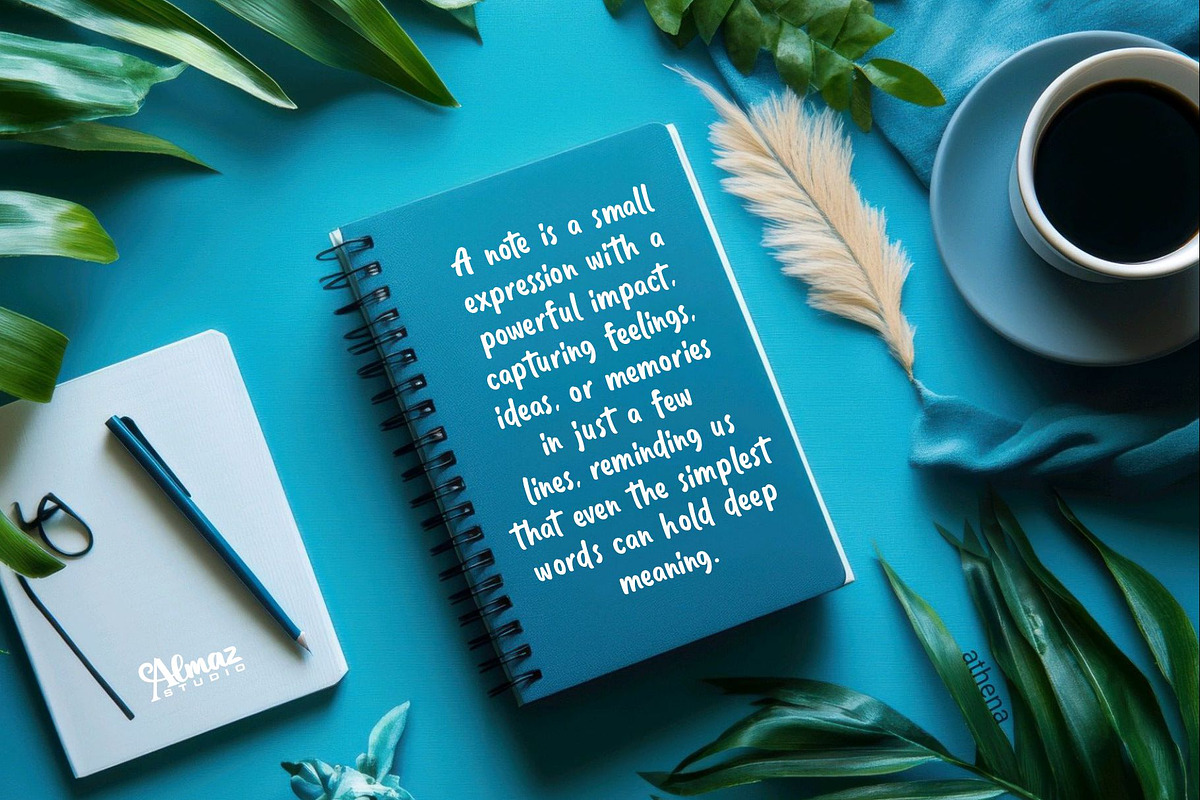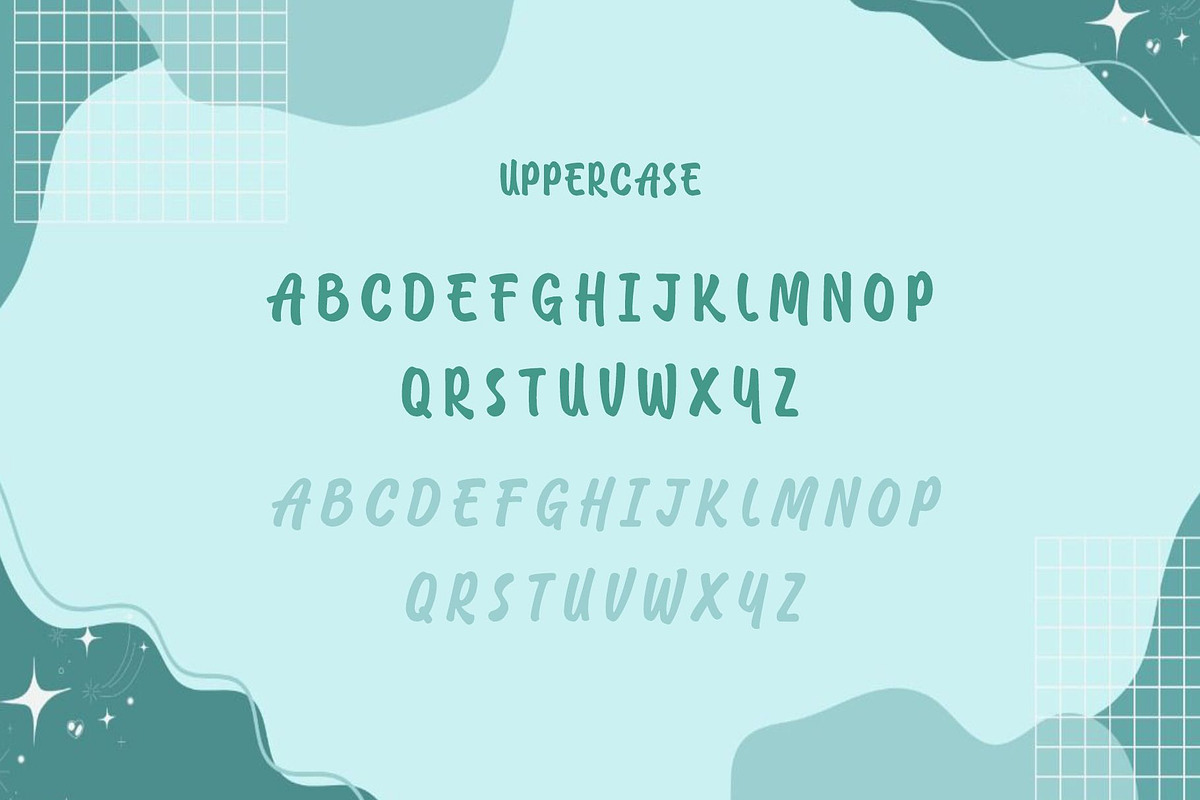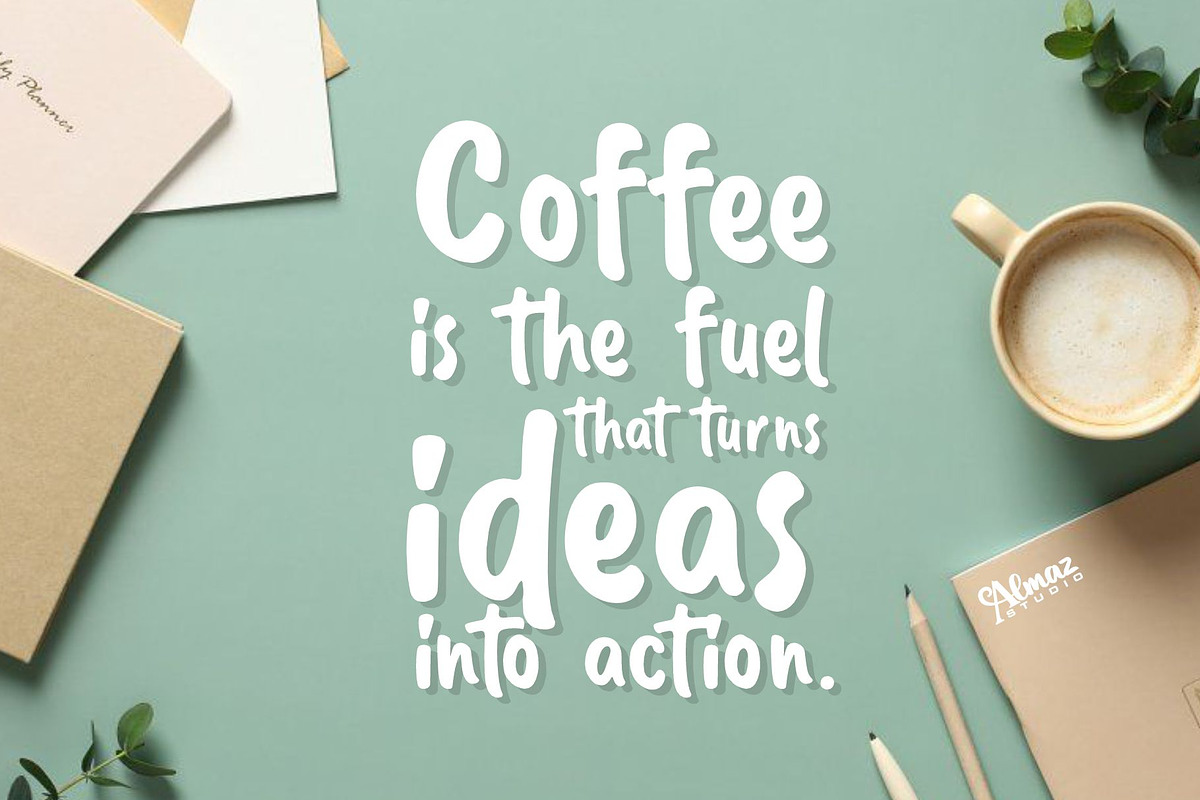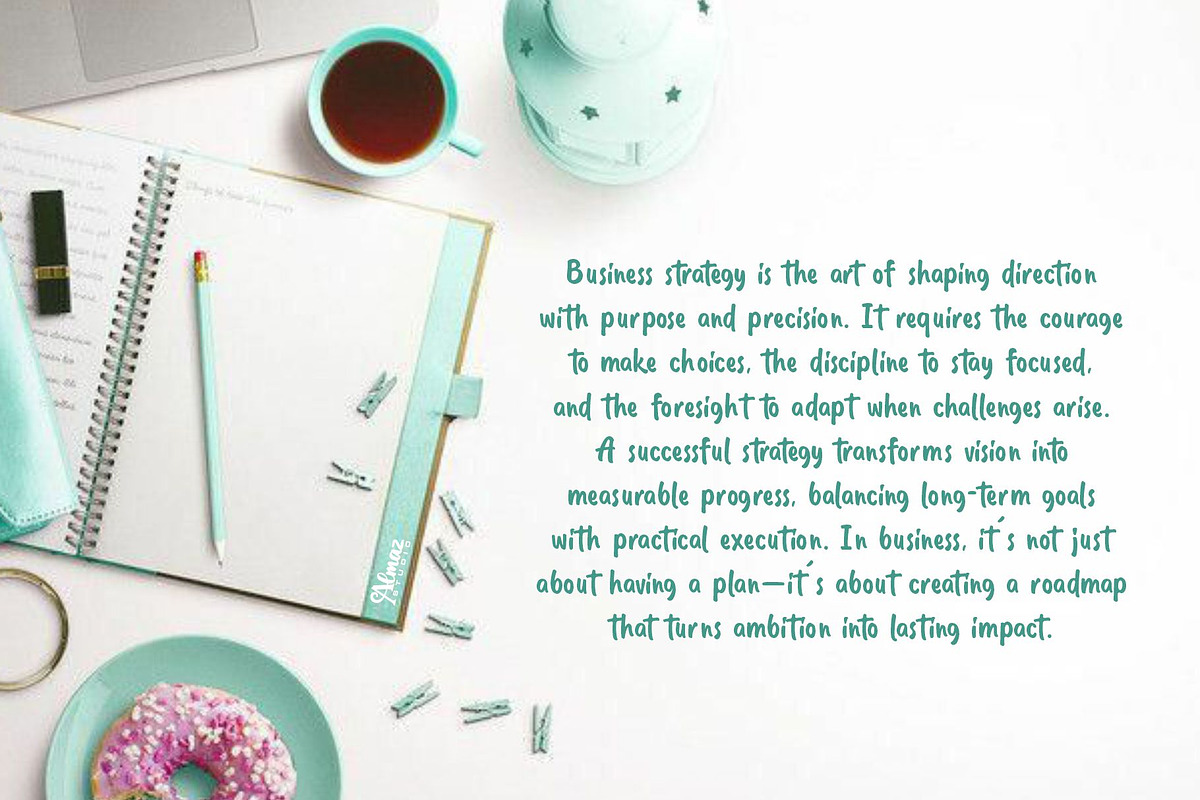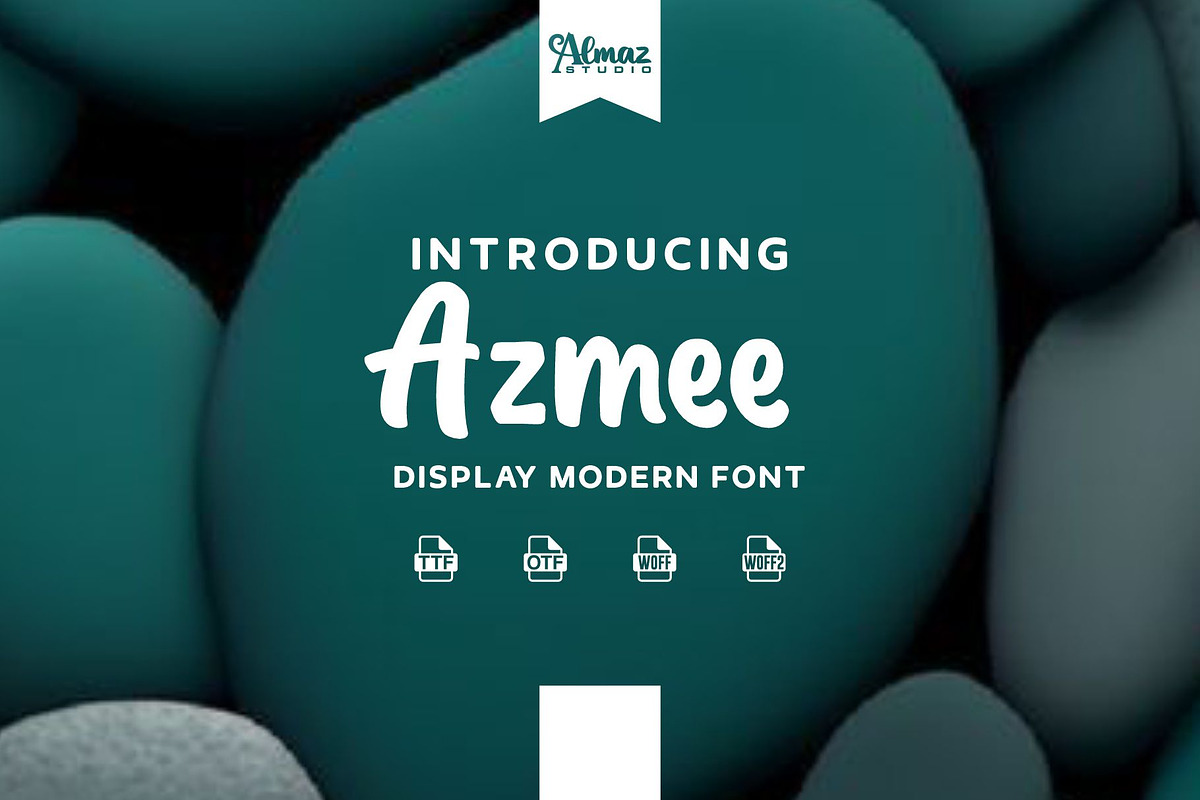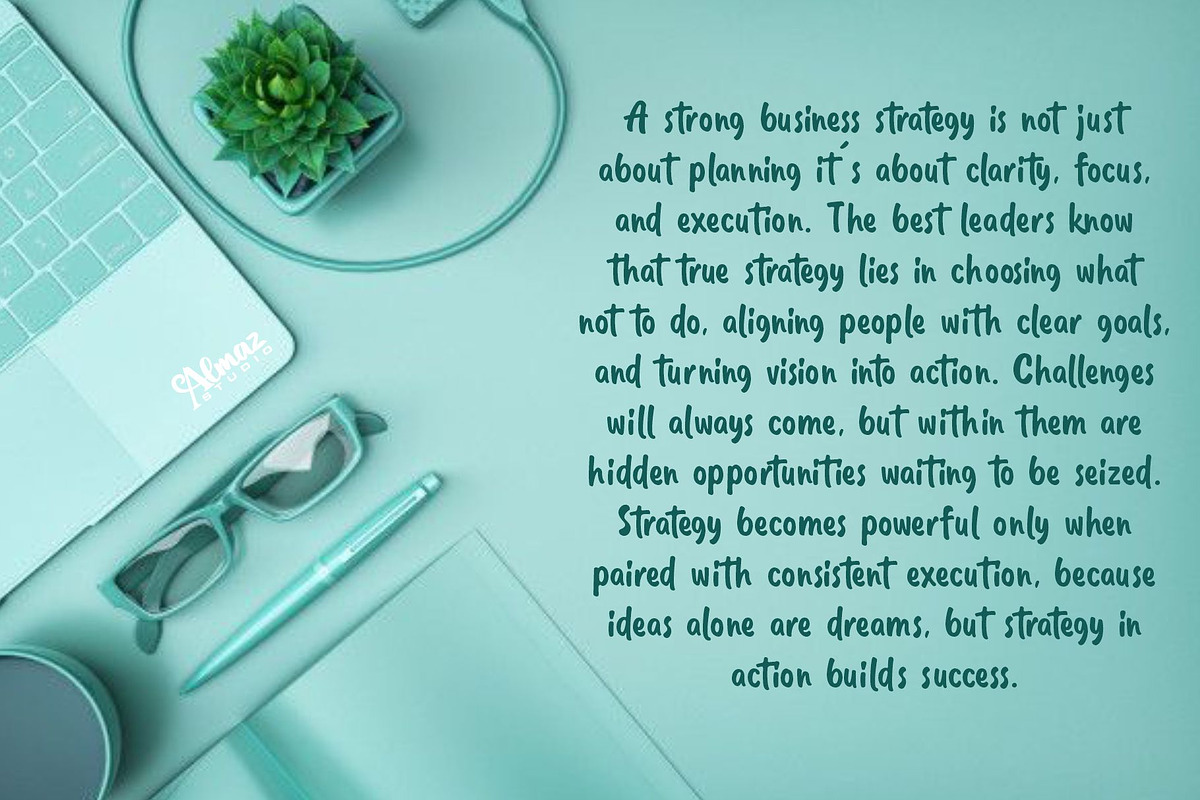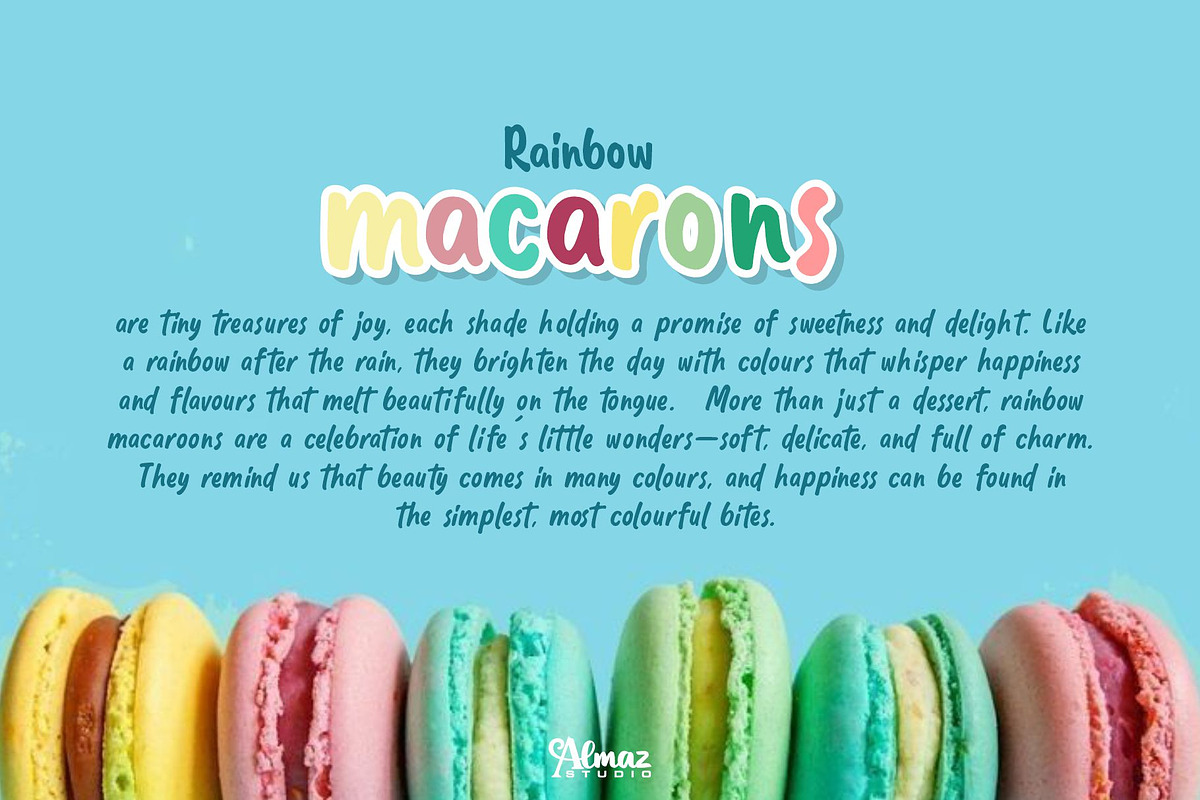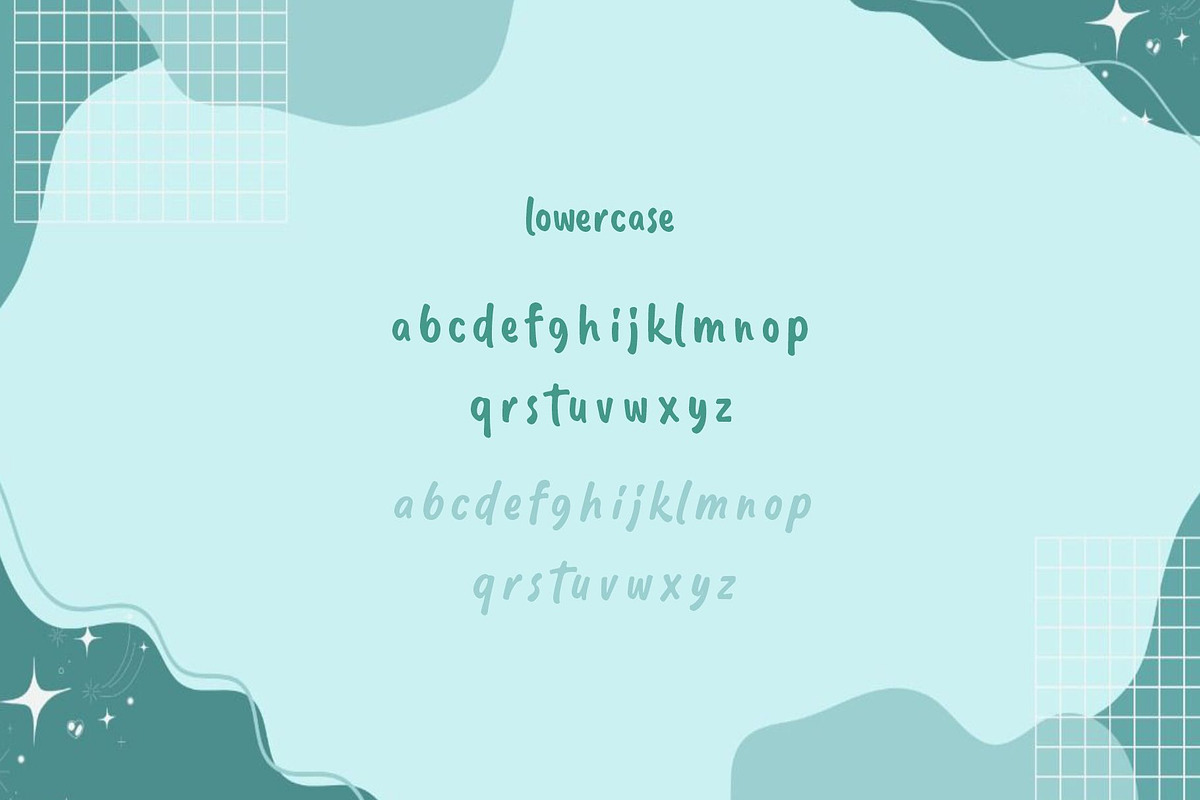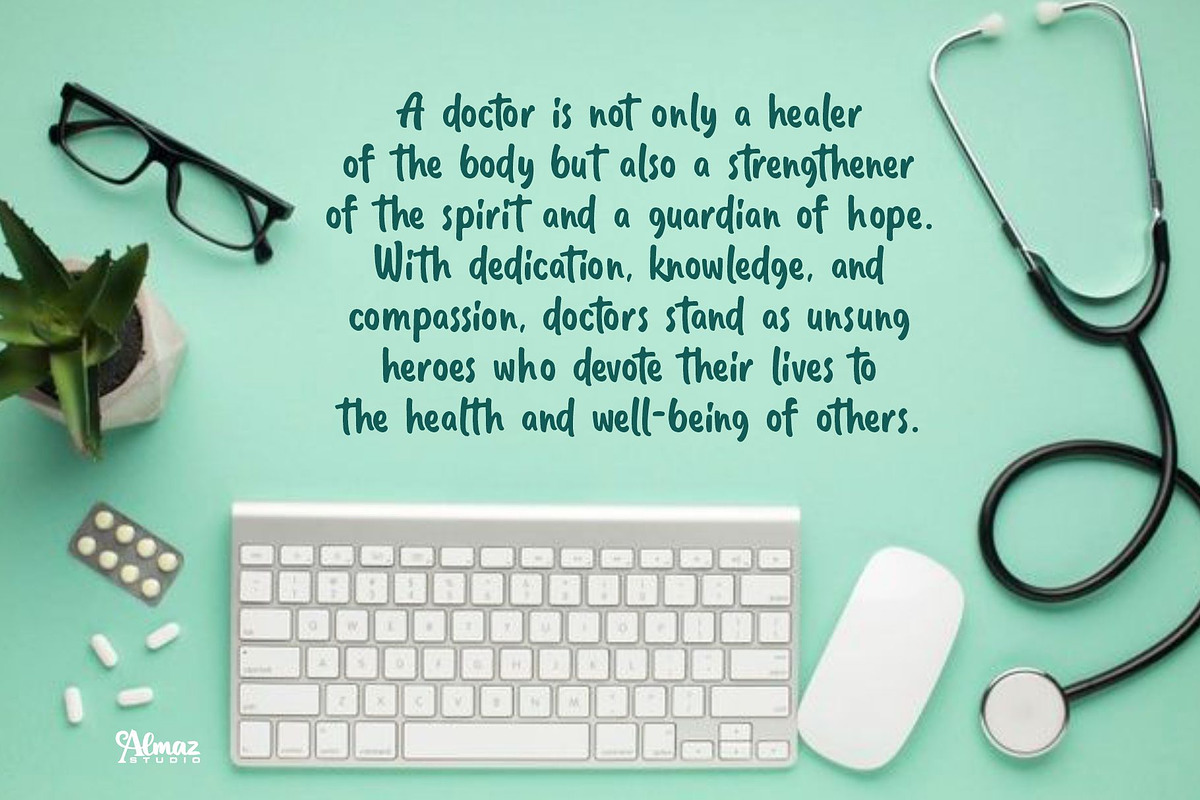
Azmee
Azmee is a modern display font with a playful, friendly, and bold personality. It features soft rounded strokes, smooth curves, and a casual handwritten feel that gives the font a warm and approachable character. The design is expressive yet clean, making it easy to read while still visually engaging.
Azmee is ideal for branding, children’s products, creative projects, logos, packaging, social media graphics, posters, and fun promotional designs. Its cheerful and contemporary style makes it perfect for designs that aim to feel joyful, creative, and inviting.